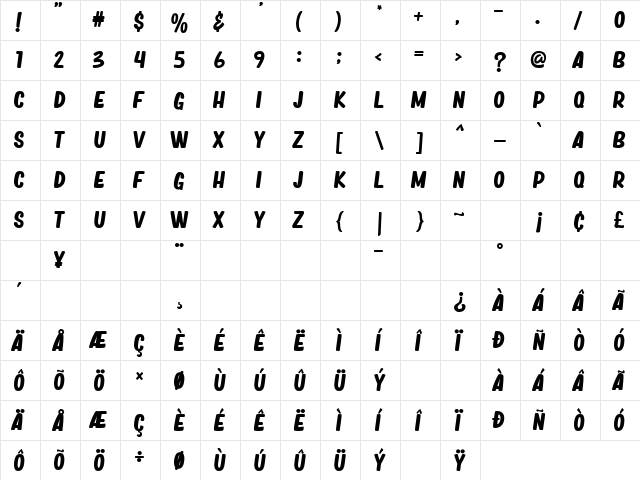
Magic Dreams Regular
| Foundry | Figuree Studio |
| Designer | Icep Anwar Fadhil |
Design Context for Magic Dreams Typeface
Magic Dreams is a composed and adaptable typeface that performs quietly and consistently across a wide range of design contexts.